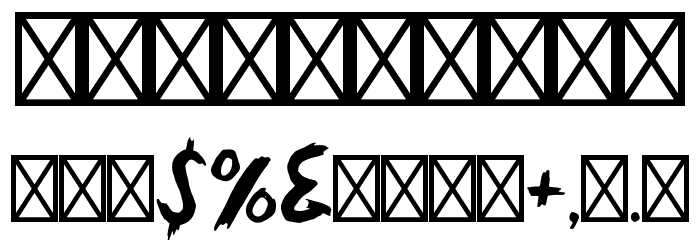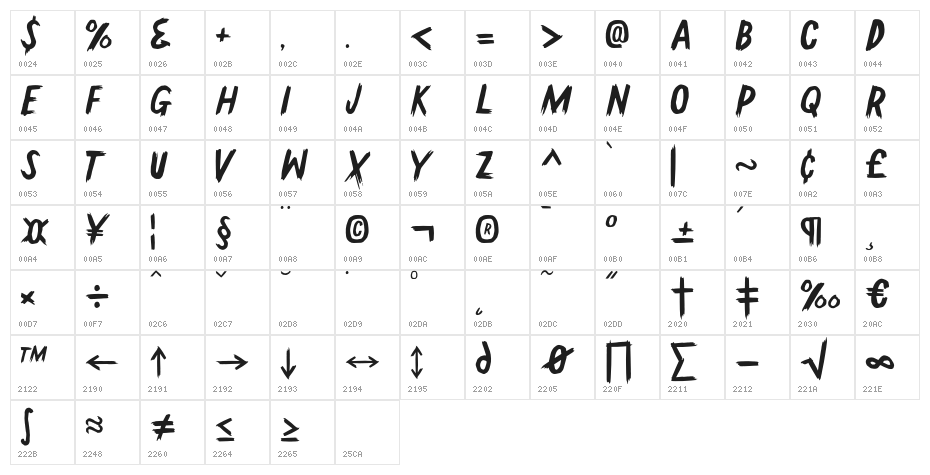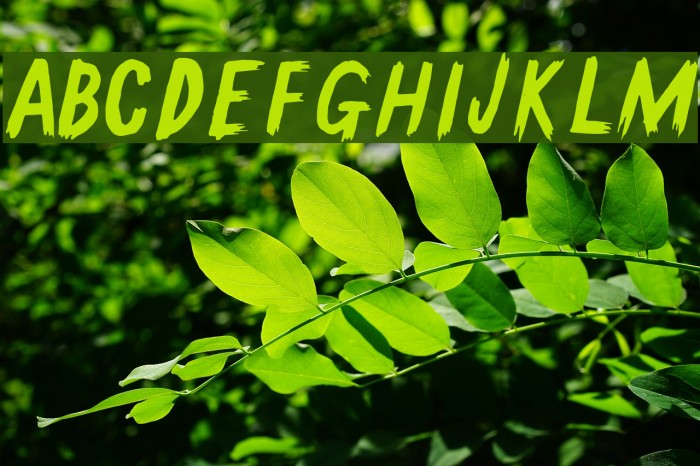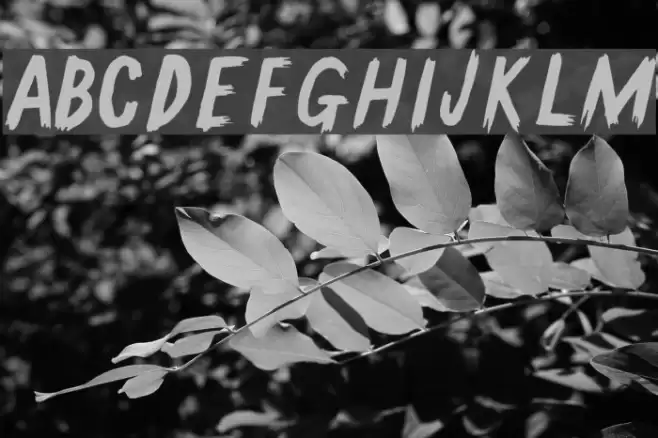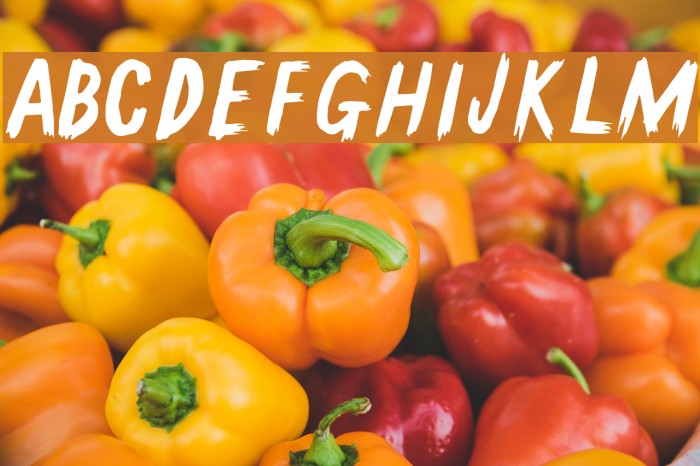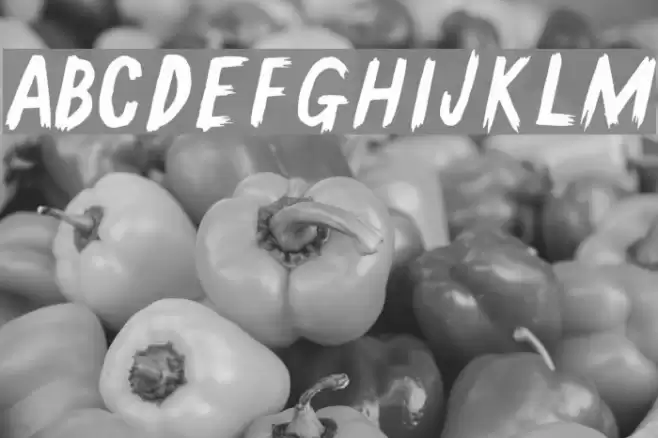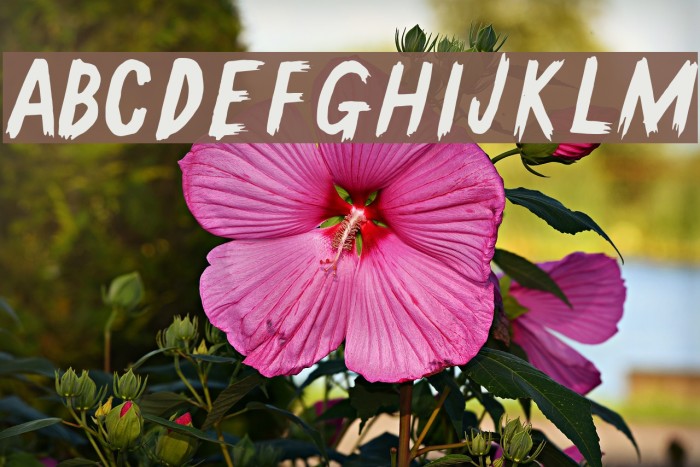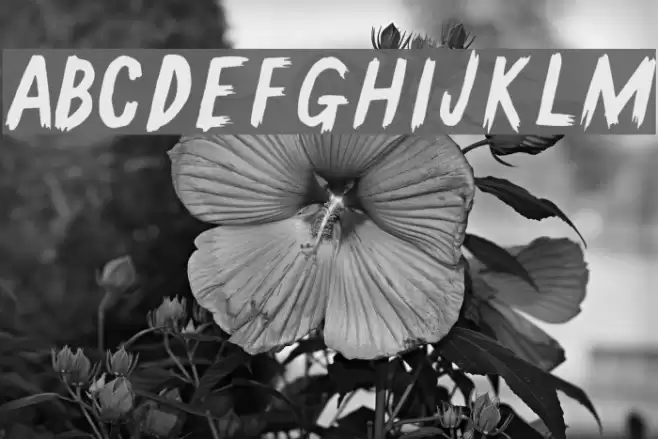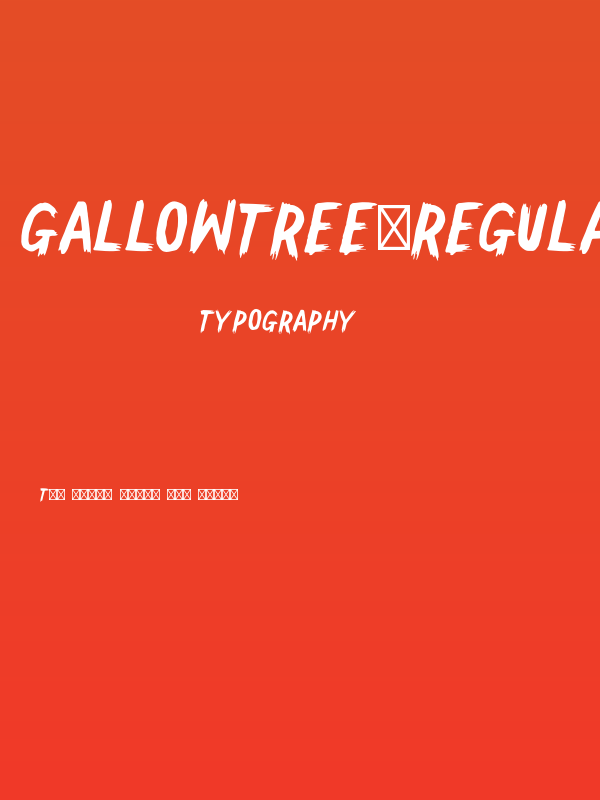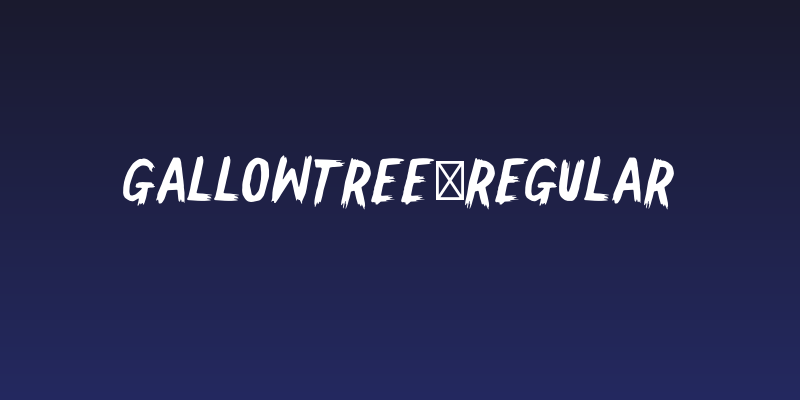
GallowTree-Regular Font
GallowTree-Regular Description
This font features a bold and dynamic style with sharp, jagged edges that give it a dramatic and intense appearance. The uppercase letters are particularly striking, with a sense of movement and energy that suggests a hand-drawn or brush-stroke effect. The characters are slightly irregular, adding to the font's unique and edgy aesthetic. This font is designed to capture attention and convey a sense of urgency or excitement. The special characters maintain the same bold and expressive style, ensuring consistency across all elements.
| Proposed Projects | Ideal for horror-themed posters, edgy branding, or music album covers. |